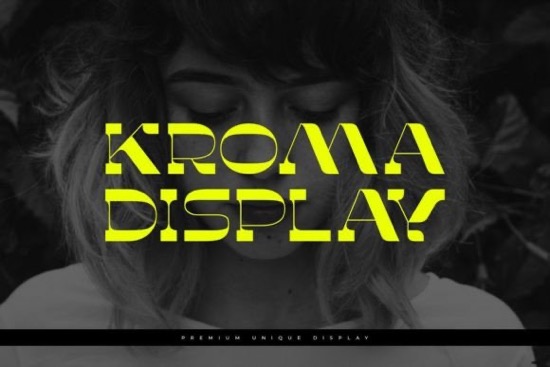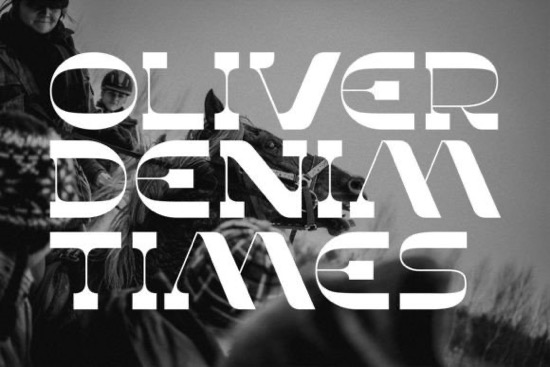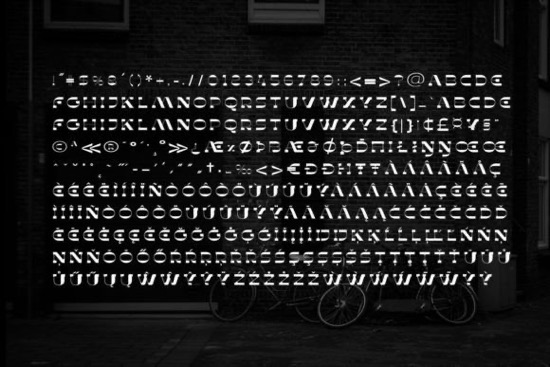
Kroma Display has a Modern Elegant Display Style, perfect for branding, logos, invitations, and more. This distinctive and exquisite display font is perfect for making a bold statement. Kroma Display’s unique lines and curves evoke a sense of sophistication and elegance, while its sleek and modern look adds a touch of class.
Kroma Display Modern Font
Name: Kroma Display
Designed, Published by: Webhance